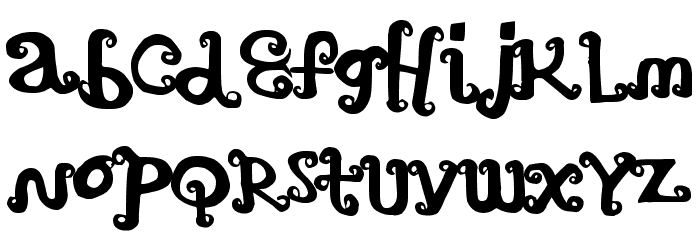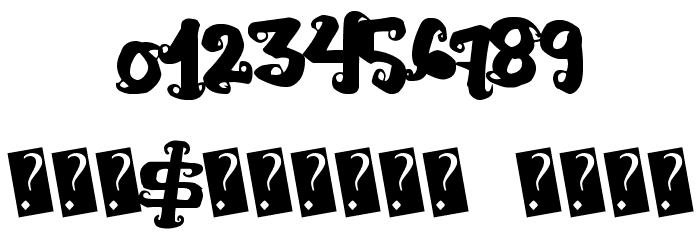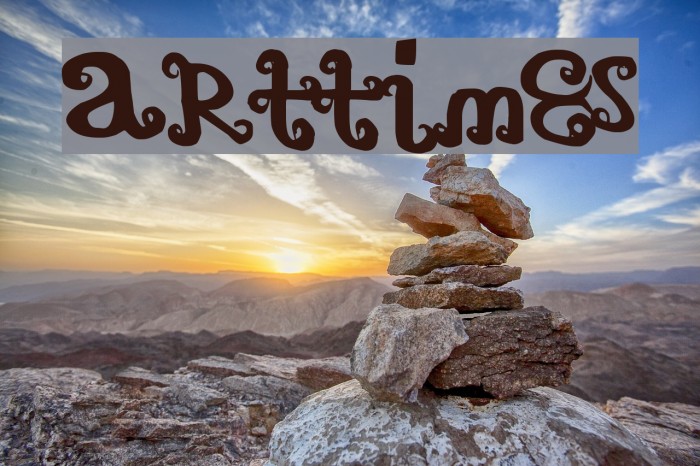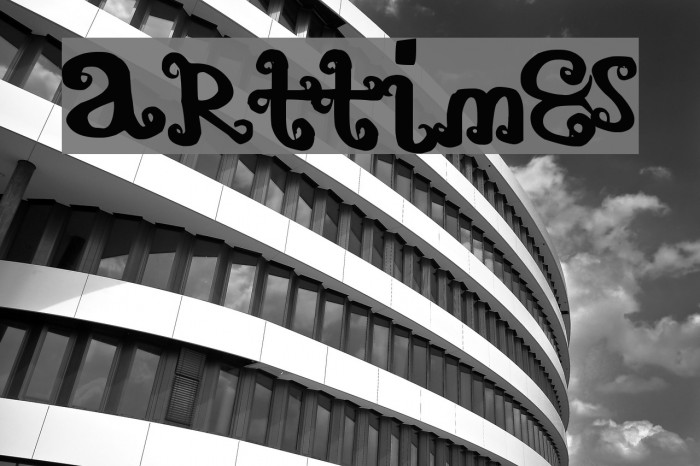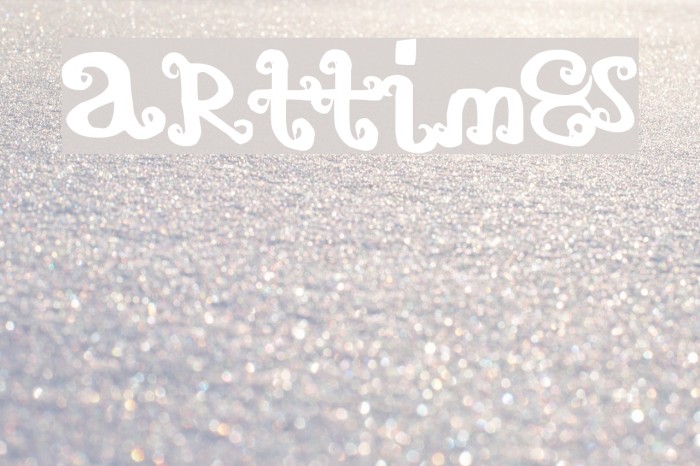
ArtTimes Font
This font features a whimsical and playful design, characterized by its bold and rounded letterforms. Each character is adorned with unique, decorative elements, such as small dots and curls, giving it a lively and artistic appearance. The font maintains a consistent thickness throughout, with minimal contrast between strokes. Its distinctive style makes it stand out, ideal for creative and fun projects. The characters are evenly spaced, ensuring readability despite their ornate design. This font is perfect for capturing attention and adding a touch of creativity to any text.
A whimsical, decorative font with bold, rounded letterforms and playful embellishments.
- Proposed Projects: Ideal for children's books, playful branding, party invitations, and creative posters.